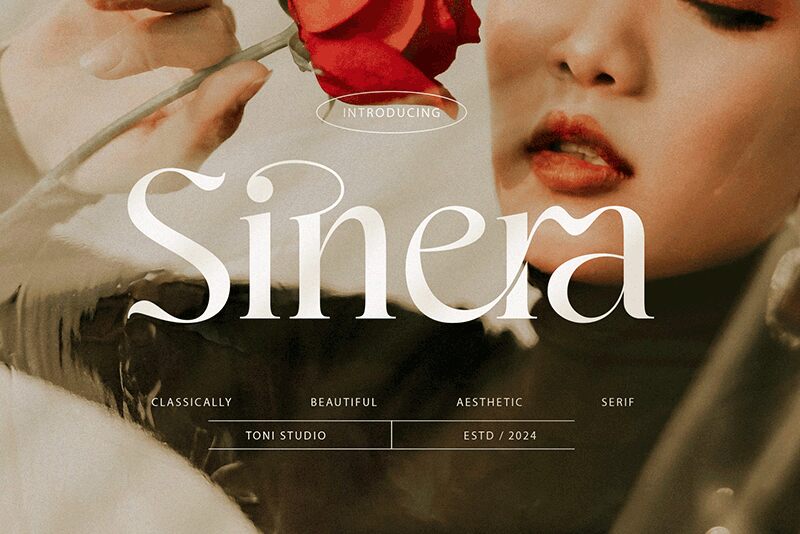
Sinera
Sinera font is a creation of ToniStudio that combines elegance with sophistication for incredible final results. It is identified by its light nature and refined aesthetic which creates curious yet interesting typography. Sinera is a display font, meaning it authors an excellent design limited to moderately large sizes such as subheadings, logo design, and more.
Use this free display font for poster titling, book cover design, magazine covers or anywhere in the masthead of newspapers and journals. Use it in logos for classy brands or design the names of businesses like hotels and restaurants. It also has incredible applications in invitation cards whether personal or organizational ones for different occasions.